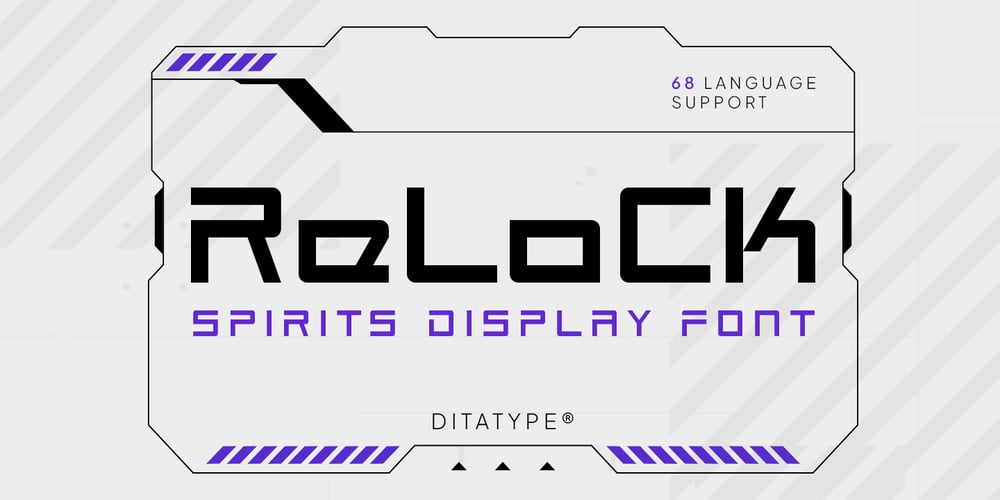
Relock Font Family was designed by Donis Miftahudin and published by Ditatype. Relock contains 1 styles and family package options. Relock is a sleek display font that combines a thin weight with a sturdy, sharp-edged design. Its precision-cut corners and geometric forms give it a modern, high-tech appeal. With its clean, futuristic style, Relock ensures your text stands out with sharpness and clarity, while maintaining a sophisticated edge. In addition, enjoy the features here.Features: Multilingual Supports PUA Encoded Numerals and Punctuations Relock fits in logos, posters, flyers, branding materials, print media, editorial layouts, and many more designs. Find out more ways to use this font by taking a look at the font preview.Thanks for purchasing our fonts. Hopefully, you have a great time using our font. Feel free to contact us anytime for further information or when you have trouble with the font. Thanks a lot and happy designing.